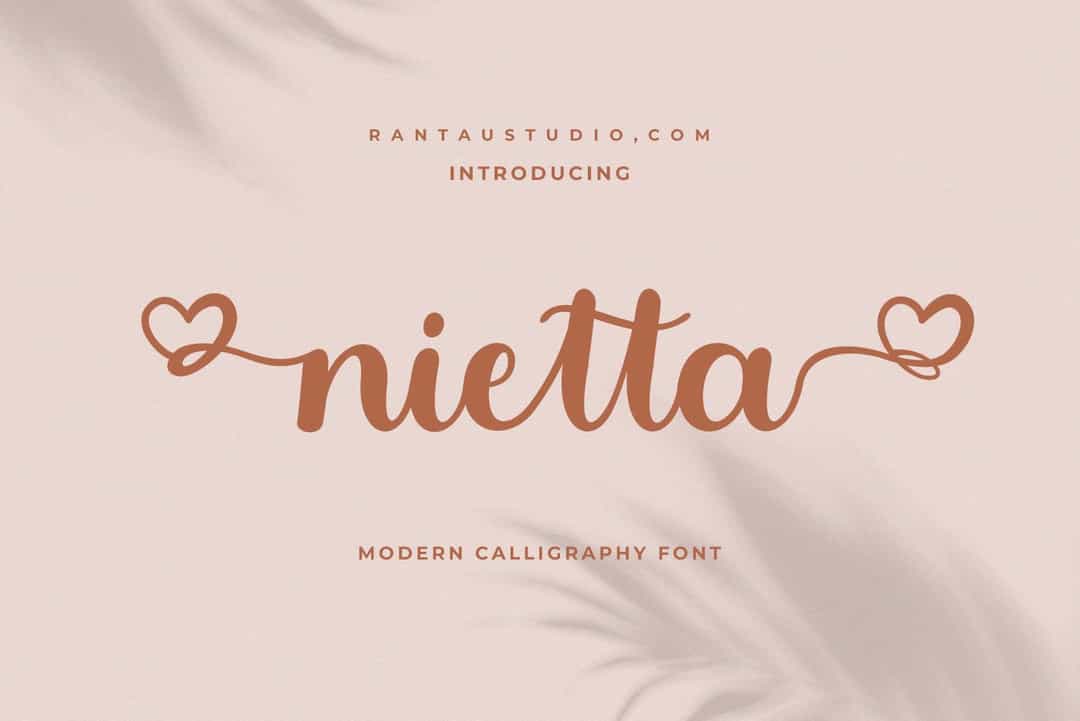
Discover Nietta Font, part of the Calligraphy collection—a versatile and unique font perfect for adding a personal touch to your projects. Download it for free and enjoy crafting designs with style, from invitations to social media posts. This font is available exclusively for personal use, giving you the freedom to create without limits. Unlock your creativity with Nietta Font today!
“Nietta” is an elegant script font created to adorn Marry Me. I use contemporary, feminine fonts with attractive feminine characteristics for ease of use and create ligature using different fonts to give users options on whether to use or not use.